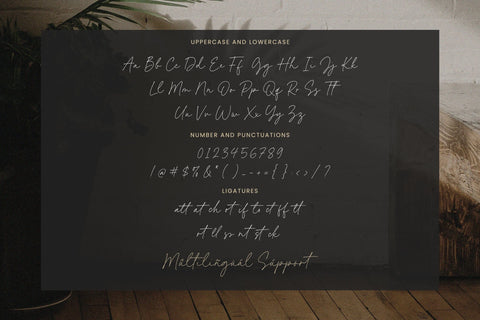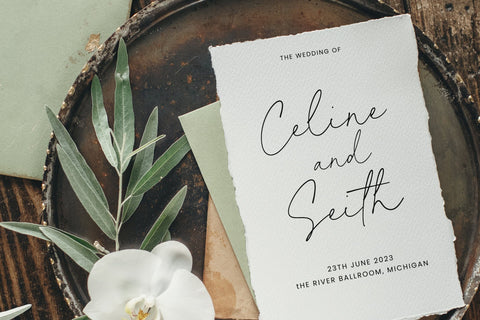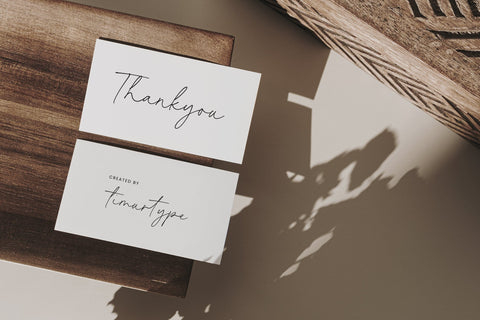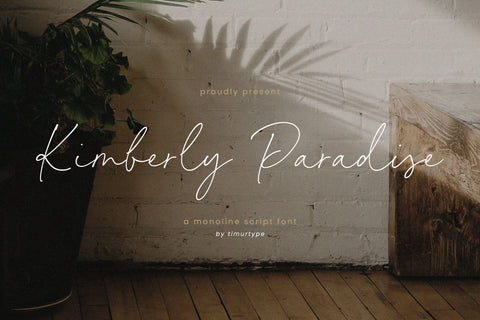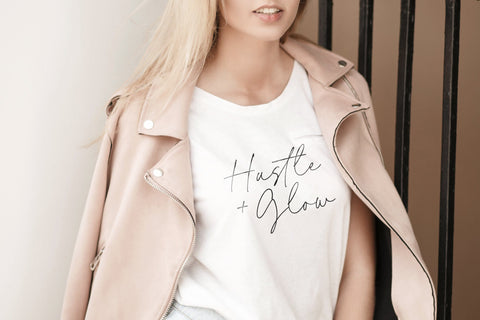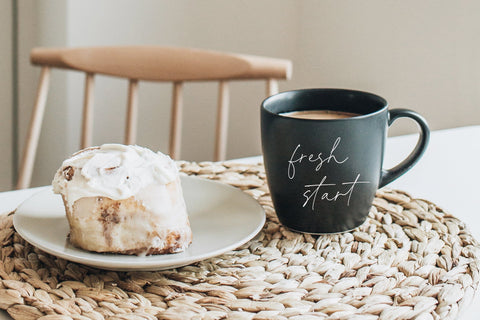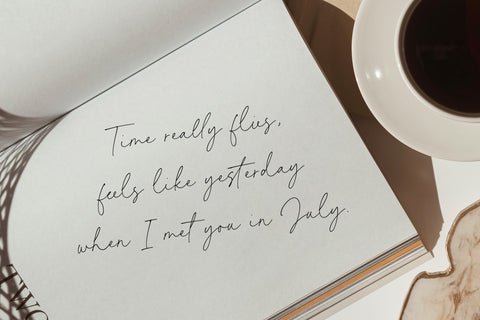
Kimberly Paradise - monoline font
Introducing by Timur type
Proudly Present, Kimberly Paradise
Kimberly Paradise - monoline font , which was created with great care and specially created for you
Kimberly Paradise is perfect for product packaging, branding project, megazine, social media, wedding, or just used to express words above the background.
– multilingual support.